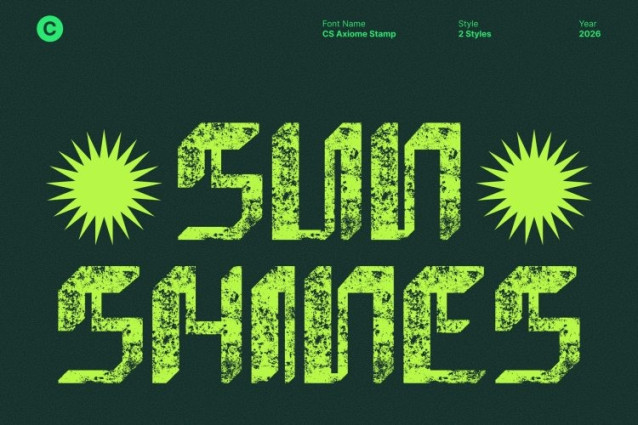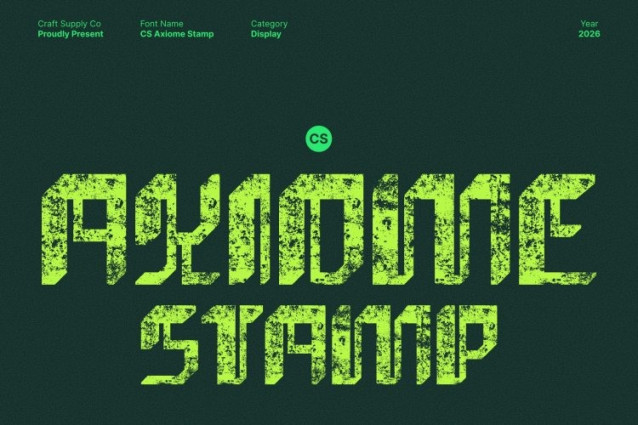
CS Axiome Stamp Font
CS Axiome Stamp Font This is a modern futuristic display font that captures the spirit of innovation and forward motion. Built with sharp lines, geometric structures, and experimental angles, this typeface delivers a sleek high-tech aesthetic enhanced by a distinctive stamp texture. The stamped effect adds raw character and depth, creating a powerful contrast between clean futurism and industrial imperfection.
Technological Vision with Expressive Texture
Each letterform reflects precision and modern design through its sharp geometry and dynamic forms. The added stamp texture introduces subtle irregularities that evoke mechanical printing and analog grit, giving the font an expressive, tactile presence while preserving its futuristic clarity and energy.
Clean Structure Meets Experimental Attitude
Rooted in strong typographic principles, balances functional readability with experimental form. The stamped detailing prevents the design from feeling overly sterile, allowing it to feel bold, innovative, and visually engaging across both digital and print applications.
Perfect for Tech, Gaming, and Conceptual Design
Ideal for tech branding, gaming visuals, futuristic posters, UI/UX concepts, logos, and digital campaigns, delivers a confident voice with attitude. Its fusion of cutting-edge geometry and industrial stamp texture makes it perfect for projects that demand innovation, strength, and a forward-looking identity.